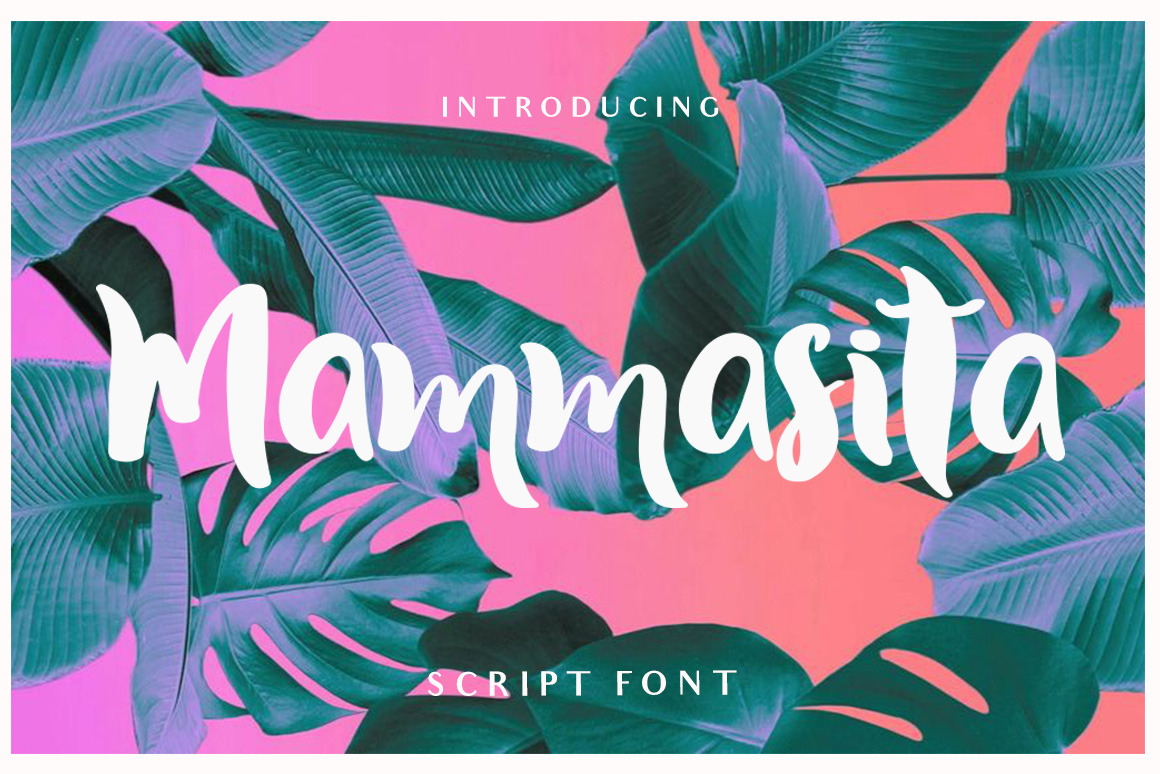
Mammasita Script Font
Mammasita Script is a feminine playful script font made with care and love to fit perfectly for your texts, logo, quotes, blog header, poster, wedding invitation, stationery, etc.
The font contains standard characters, lowercase, uppercase, numbers and punctuation.